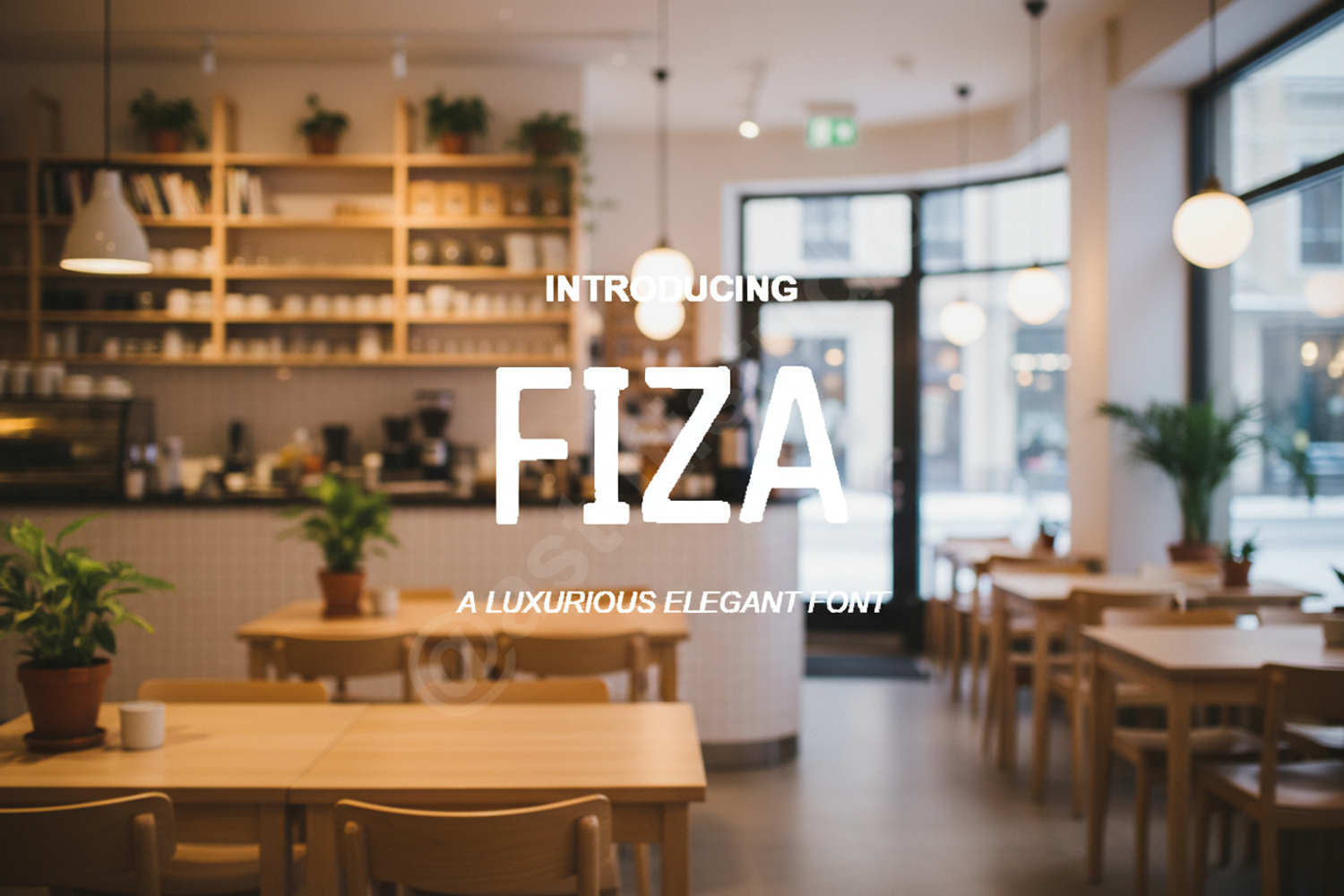
Fiza - Modern & Elegant Minimalist Serif
Fiza
Introducing Fiza, a premium serif typeface meticulously crafted for designers who demand elegance and versatility. Fiza strikes a perfect balance between classic sophistication and modern minimalism, making it a go-to choice for high-end projects that require a professional touch.
- Luxury Branding: Create memorable logos and brand identities that exude class.
- Editorial Design: Perfect for magazine headers, book covers, and sophisticated layouts.
- Wedding Stationery: Add a touch of timeless beauty to invitations and event programs.
- Digital Marketing: Elevate your social media graphics, website headers, and online advertisements.
- Product Packaging: Enhance the visual appeal of premium product labels and boxes.